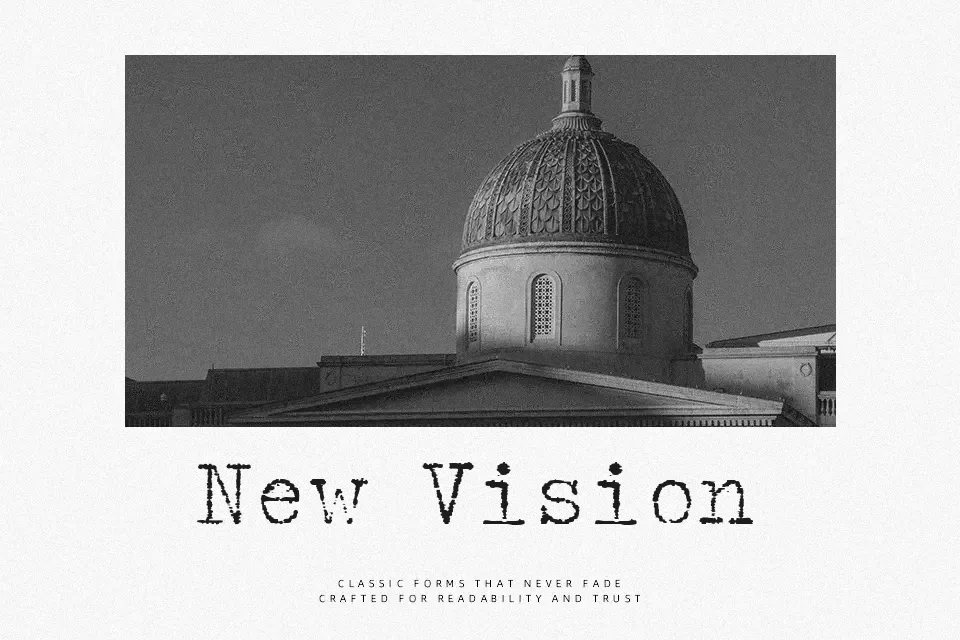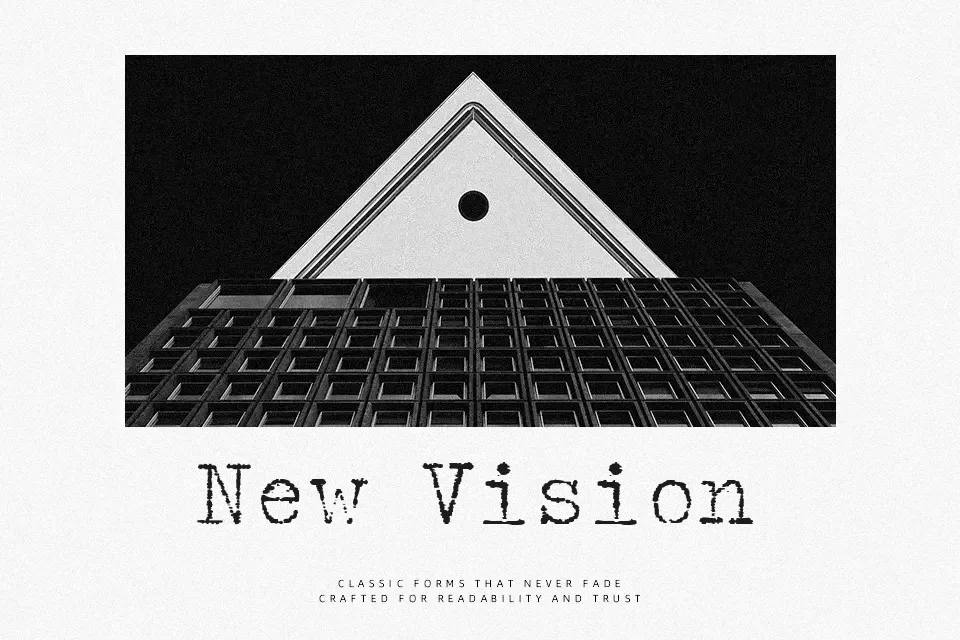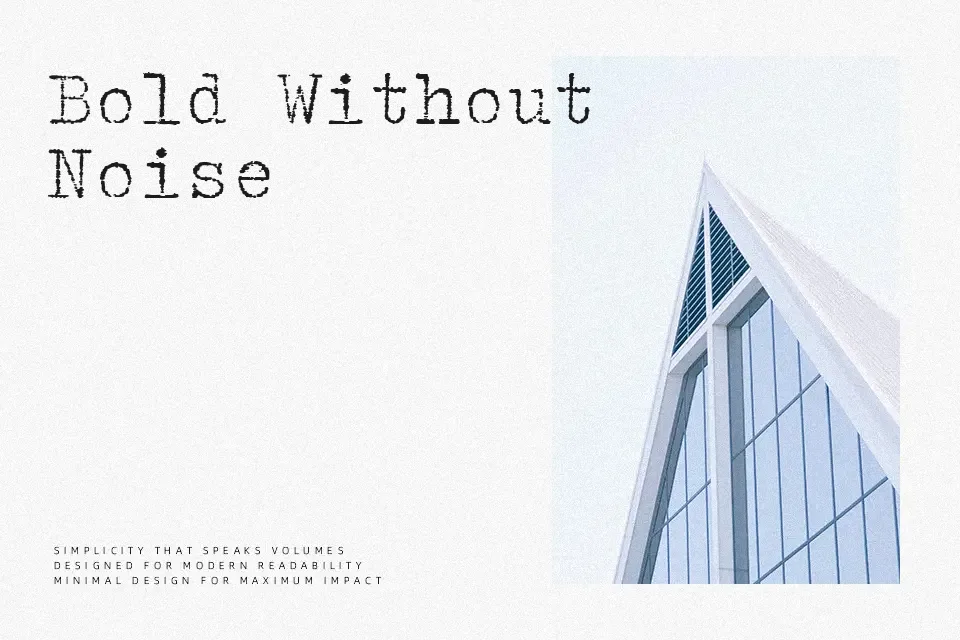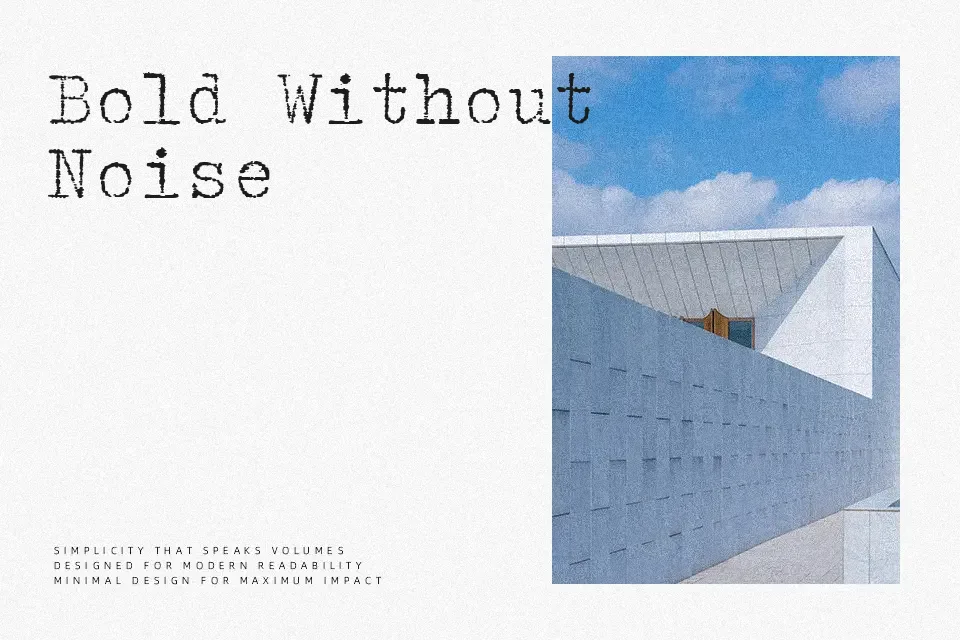
Tippa Font
Designed by Peter Wiegel
Tippa Font exhibits an unmistakable mechanical structure characterized by flat slab terminals, uniform widths, and consistent stroke weight. Every letterform occupies an identical horizontal footprint, yielding the predictable spacing and rigid visual rhythm typical of vintage manual typing machines. Proportions remain wide across narrow glyphs like the lowercase l and i, which enhances legibility at intermediate sizes. This typeface functions exceptionally well on museum exhibition signage, theatrical poster titles, and thematic product packaging. However, the unyielding horizontal cadence creates visual friction during extended paragraph reading, making dense editorial blocks difficult to scan comfortably. The disciplined spacing maintains remarkable structural clarity across large-format display compositions.
– Vintage product packaging
– Museum exhibition signage
– Theatrical poster titles
– Extended multi-page book chapters
– Dense spreadsheet data tables
– Small mobile interface labels
Perfect for editorial, headline, and packaging, with a classic and monospace style.